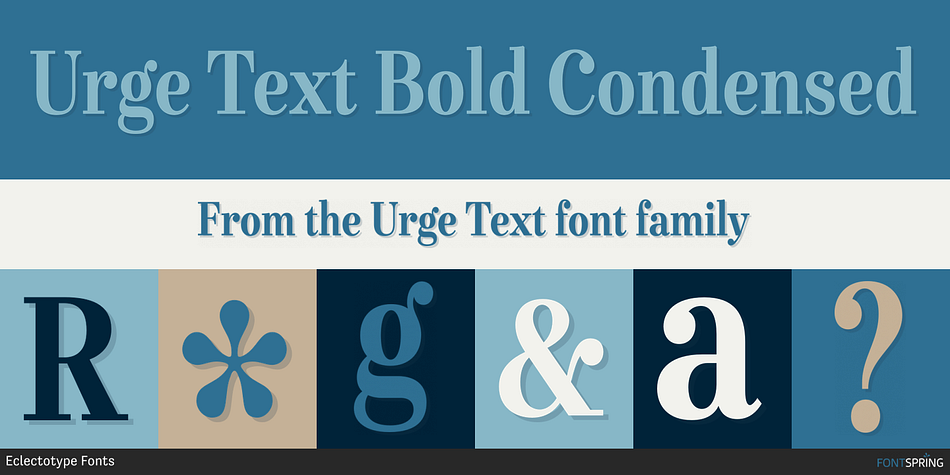
Urge Text Bold Condensed
Urge Text is a serif font family. This typeface has twenty-four styles and was published by Schizotype Fonts.
It started with an italic, or to be more precise, half an italic.
It started with an italic, or to be more precise, half an italic. The slanted styles of Urge Text exhibit a certain bipolarity, the tops of glyphs having a standard italic form, the bottoms of glyphs being more Roman in their construction. This sturdy footing really locks the italics to the baseline, making them very legible while still being distinct from the uprights. The same bipolar approach didn’t work very well in upright styles, so the Romans are more toned down.
Ranging from the almost monoline, Egyptian style light weights to higher contrast ‘Modern’ bolds, there is much potential for use in typographically demanding scenarios.
The family consists of six weights, normal and condensed widths, all with italics, making a total of 24 fonts; it’s a highly usable text typeface with an array of OpenType features.
All styles include small caps, multiple figure styles (proportional- and tabular-, oldstyle and lining, small cap proportional figures, numerators, denominators, superscript and subscript), standard ligatures, alternate forms (stylistic sets), automatic fractions, case sensitive forms, and a handy (perhaps!) ‘percent off’ ligature in the discretionary ligatures feature.